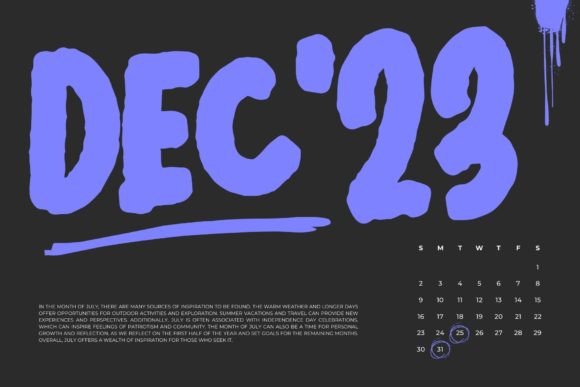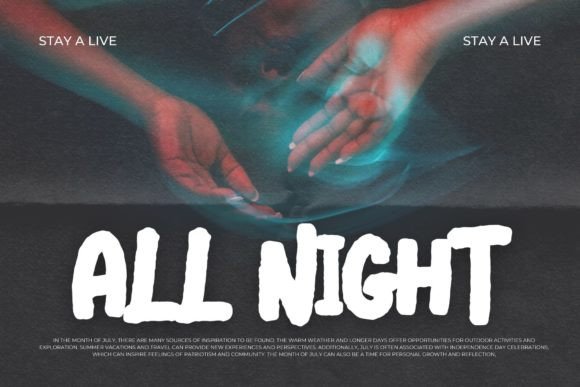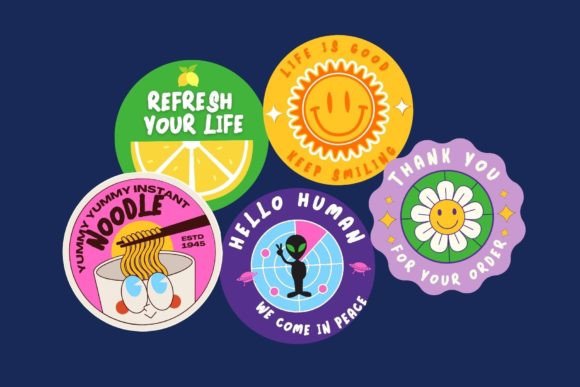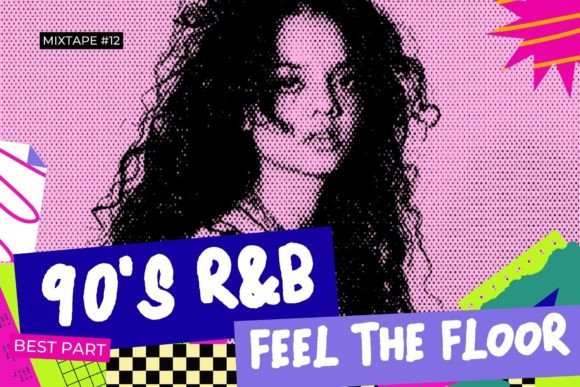
Introducing Cartone Font: The Bold and Impactful Sans-Serif for Designers and Crafters
In the world of typography, fonts play a crucial role in conveying messages, expressing emotions, and creating visual identities. For designers and crafters, finding the right font can make all the difference in their projects. If you’re looking for a font that exudes confidence, modernity, and strength, look no further than Cartone Font. Specifically, Cartone Handdrawn is a bulky and attractive sans-serif font that is bold, impactful, and impossible to ignore.
The Power of Cartone Handdrawn
Cartone Handdrawn boasts thick, powerful strokes and striking letterforms that demand attention. Its bold and impactful design makes it perfect for headlines, posters, branding, and any other project that requires a statement piece. The font’s bulky appearance gives it a rugged, industrial feel that conveys a sense of strength and resilience. At the same time, its smooth lines and curves add a touch of modernity, making it suitable for a wide range of applications.
Key Features of Cartone Font
- Bold and Impactful Design: Cartone Handdrawn is designed to make a statement. Its thick strokes and striking letterforms ensure that your message gets noticed.
- Versatility: This font is perfect for various projects, including headlines, posters, branding, packaging, and more.
- Modern and Industrial Feel: The combination of bold strokes and smooth lines gives Cartone Handdrawn a unique blend of modernity and ruggedness.
- Easy to Read: Despite its bold design, Cartone Handdrawn remains easy to read, making it suitable for both digital and print applications.
Using Cartone Font in Your Projects
Cartone Handdrawn is an excellent choice for designers and crafters looking to add a bold and modern touch to their projects. Here are some ideas on how to use this font effectively:
- Headlines and Titles: Use Cartone Handdrawn to create attention-grabbing headlines and titles that set the tone for your content.
- Posters and Flyers: This font is perfect for creating bold and eye-catching posters and flyers that grab attention.
- Branding and Logo Design: Cartone Handdrawn can be used to create a strong and memorable brand identity that exudes confidence and modernity.
- Packaging Design: Add a bold and industrial touch to your packaging designs with Cartone Handdrawn.
Tips for Working with Cartone Font
To get the most out of Cartone Handdrawn, here are some tips to keep in mind:
- Pair with Contrasting Fonts: Pair Cartone Handdrawn with simpler fonts to create contrast and visual interest.
- Experiment with Colors: Try out different colors to find the perfect combination that complements your design.
- Use it Sparingly: While Cartone Handdrawn is bold and impactful, it’s best to use it sparingly to avoid overwhelming your design.
Cartone Font, specifically Cartone Handdrawn, is a powerful and attractive sans-serif font that is perfect for designers and crafters looking to add a bold and modern touch to their projects. With its thick strokes, striking letterforms, and industrial feel, it’s ideal for headlines, posters, branding, and more. By incorporating Cartone Handdrawn into your design toolkit, you’ll be able to create visually stunning projects that demand attention and convey confidence and modernity.